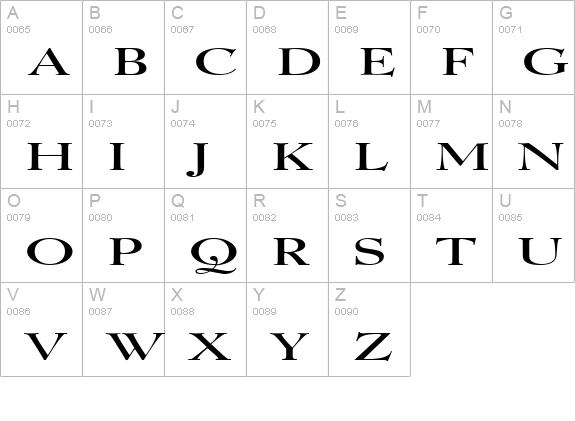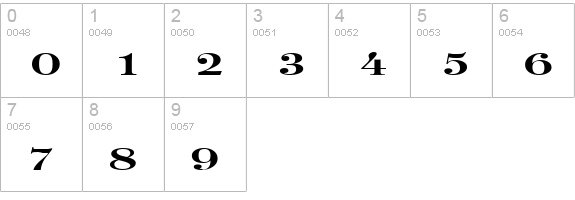
Luciano Extended Normal is the standard, neutral, extended-width variant in the Luciano typeface family \xE2\x80\x94 well suited to general body text, paragraphs, and standard typographic work.
Luciano Extended Normal font is a versatile and stylish typeface that exudes elegance and sophistication. Its elongated letterforms and clean lines make it perfect for a wide range of design projects, from branding to editorial layouts. The balanced proportions and subtle details of Luciano Extended Normal create a harmonious and polished look, making it a popular choice among designers and creatives. What sets Luciano Extended Normal apart is that it is available for free download at FontsMarket.com. This means that you can easily access this high-quality font without any cost, allowing you to enhance your projects with a touch of class and professionalism. Whether you are working on a website, logo, poster, or any other design, Luciano Extended Normal is sure to elevate your work with its timeless appeal and modern aesthetic. Download this font today and discover the endless possibilities it offers for your creative endeavors.